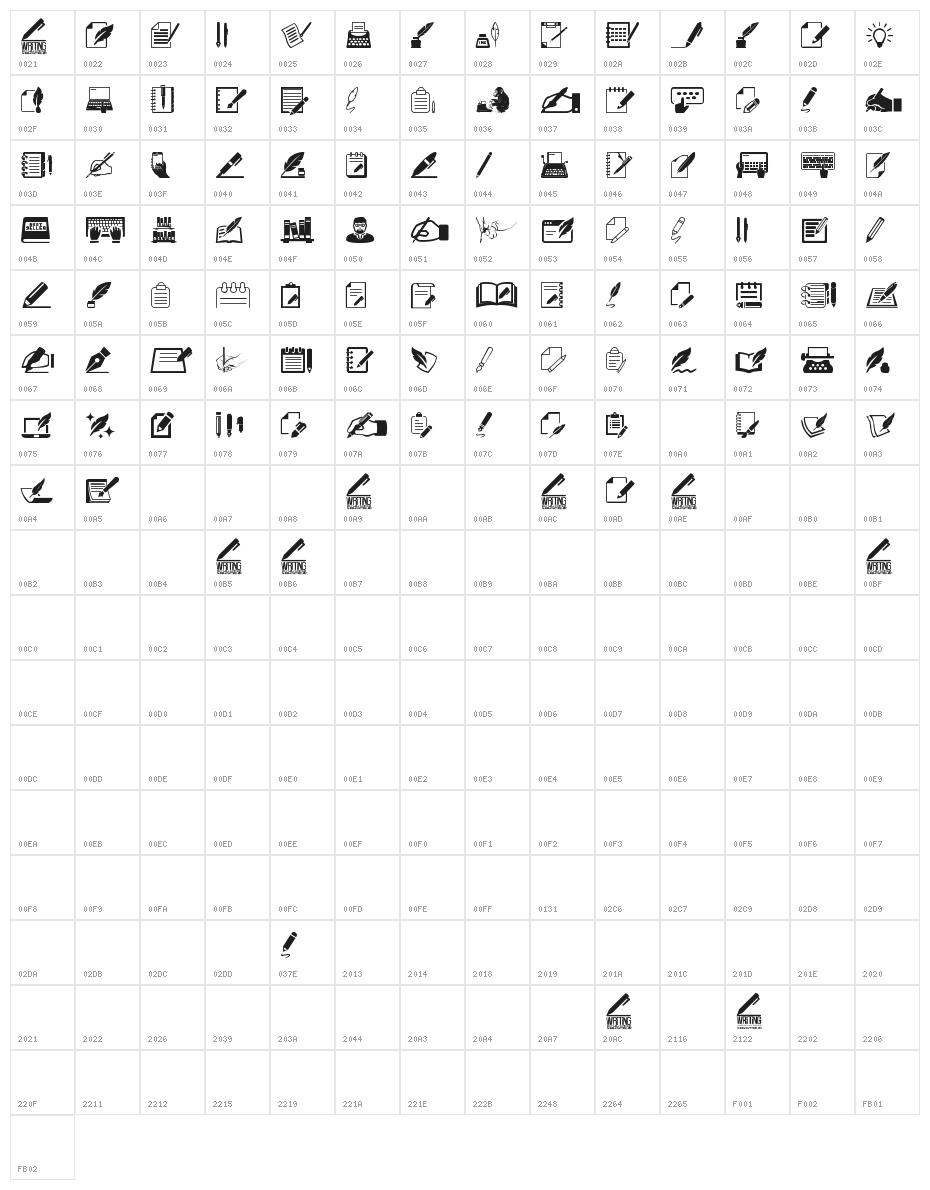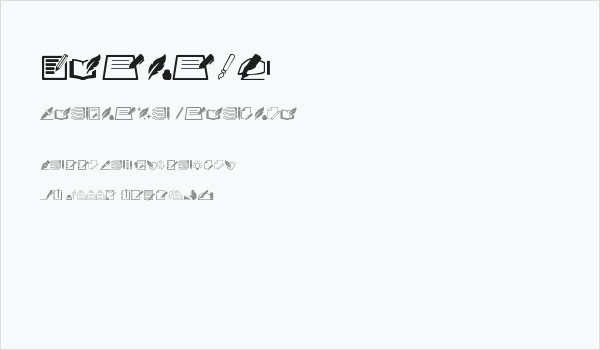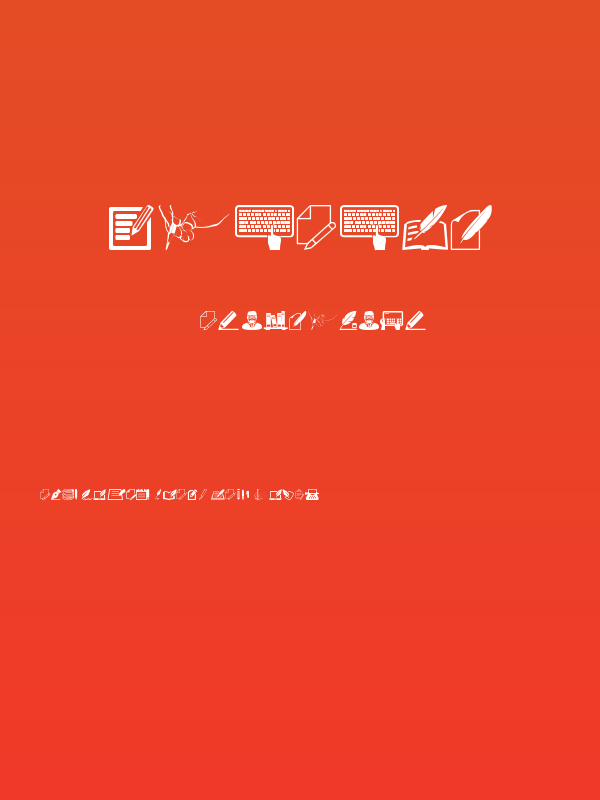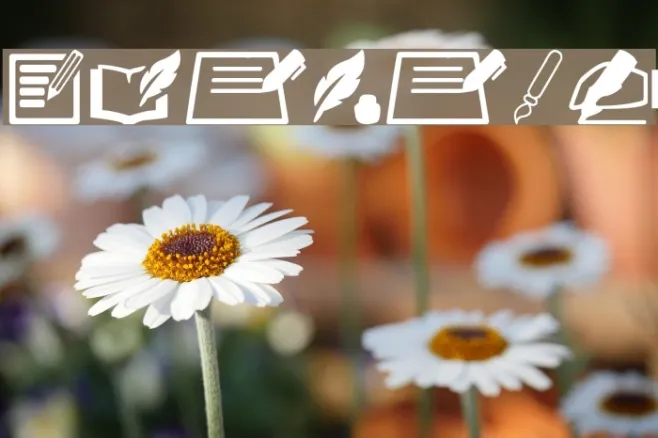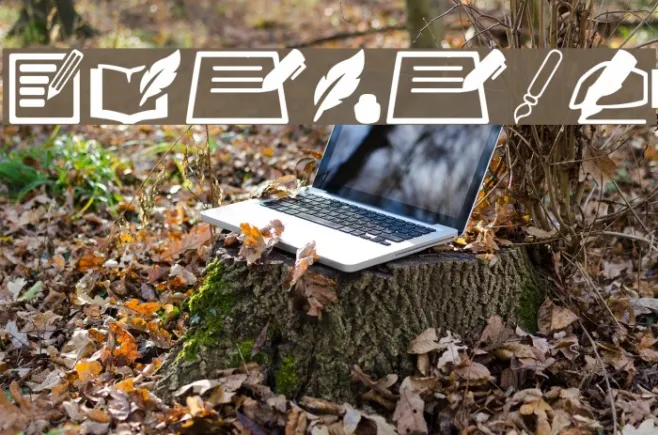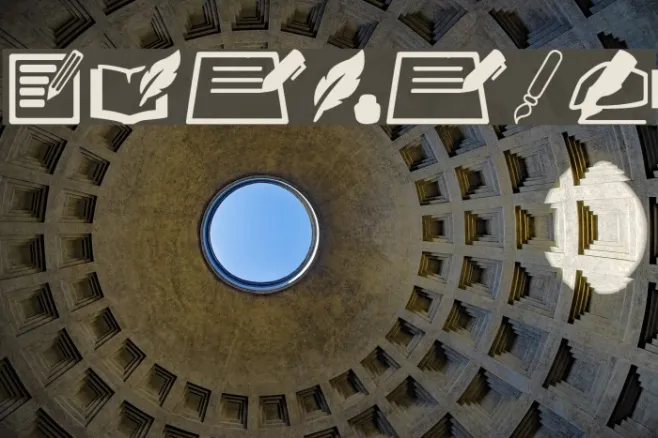
Writing Font
Writing Description
A decorative icon-based font featuring various writing-related imagery such as pens, pencils, typewriters, books, and notepads, each glyph representing a unique writing or literary concept rather than traditional letterforms.
| Overall Style | Decorative, Modern |
| Use Case | Logos, Icons, Themed graphics, Posters |
| Proposed Projects | Educational materials, writing workshops, creative branding, book covers, stationery, infographics, and themed posters. |